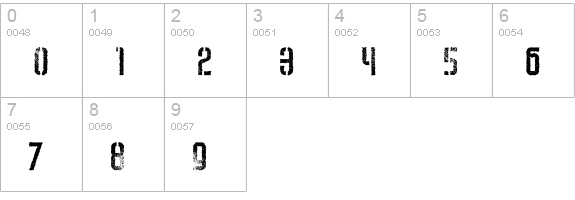
Weltron Urban Font Details
Weltron Urban is a striking and modern font that exudes urban vibes and contemporary flair. With its bold and edgy design, this font captures the essence of the bustling city streets and the dynamic energy of the urban lifestyle. Its unique letterforms are meticulously crafted, combining sharp angles with sleek curves to create a captivating visual impact. This font is perfect for creating eye-catching headlines, logos, and branding materials that demand attention. Its versatility allows it to be used in a wide range of design projects, from posters and advertisements to websites and social media graphics. Whether you're designing for a fashion brand, a music festival, or a tech startup, Weltron Urban will add a touch of modernity and sophistication to your creations. And the best part? Weltron Urban is free! You can easily download this font at FontsMarket.com, a renowned platform for high-quality and diverse font collections. Now, you can enjoy the benefits of this stunning font without breaking the bank. So, don't miss out on the opportunity to elevate your designs with Weltron Urban's bold and contemporary aesthetic. Download it today and let your creativity soar!